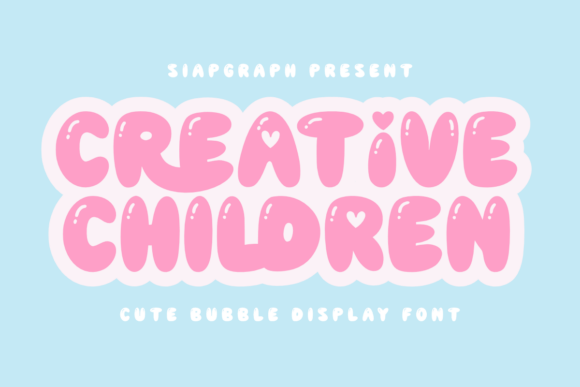
Introducing Creative Children Font: The Ultimate Playful Display Font for Kids
Are you looking for a font that can instantly bring a burst of youthful energy and whimsical charm to your designs? Look no further than Creative Children, an adorable and playful bubble display font that is perfect for creative projects aimed at kids. With its plump, rounded letterforms and delightful heart accents, this font is sure to create a truly endearing and eye-catching presence that will captivate young audiences.
The Perfect Font for Kids’ Designs
Creative Children is specifically designed to infuse a dose of fun and cheerfulness into a wide variety of creative projects for kids. Whether you’re creating vibrant stickers, enchanting planner elements for school, eye-catching t-shirt designs for little ones, sweet product labels for children’s goods, cheerful birthday invitations, personalized tumblers, or a plethora of other engaging crafts, this font is the perfect choice.
Its distinctively friendly and approachable style makes it exceptionally well-suited for products targeting end-users who enjoy crafting with tools like Cricut and for sublimation projects, as well as for creating appealing stickers and planner elements with a truly heartwarming flair.
Unforgettable and Lively Character
Creative Children’s unforgettable and lively character will ensure your creations stand out and bring a big smile to everyone who sees them. This font is perfect for designers, crafters, and DIY enthusiasts who want to create designs that celebrate youthful imagination and bring joy to kids.
With Creative Children, you can add a touch of whimsy and playfulness to your designs, making them perfect for kids’ parties, special occasions, or everyday creative projects. Its unique and charming style will make your designs memorable and engaging, ensuring that they leave a lasting impression on your audience.
Key Features of Creative Children Font
- Playful bubble display font with plump, rounded letterforms
- Delightful heart accents add a touch of whimsy and charm
- Perfect for creative projects aimed at kids, including stickers, planner elements, t-shirt designs, product labels, and more
- Distinctively friendly and approachable style
- Exceptionally well-suited for products targeting end-users who enjoy crafting with tools like Cricut and for sublimation projects
- Unforgettable and lively character that brings a big smile to everyone who sees it
Ideas for Using Creative Children Font
Creative Children is a versatile font that can be used in a wide range of creative projects. Here are some ideas to get you started:
- Vibrant stickers for kids’ parties or special occasions
- Enchanting planner elements for school or home organization
- Eye-catching t-shirt designs for little ones
- Sweet product labels for children’s goods
- Cheerful birthday invitations or party decorations
- Personalized tumblers or water bottles for kids
- Appealing stickers and planner elements for Cricut or sublimation projects
Why Choose Creative Children Font?
There are many fonts available that are suitable for kids’ designs, but Creative Children stands out for its unique and charming style. Here are some reasons why you should choose Creative Children for your next project:
- Unique and playful design that will capture kids’ attention
- Easy to read and understand, even for young children
- Versatile font that can be used in a wide range of creative projects
- Exceptionally well-suited for products targeting end-users who enjoy crafting with tools like Cricut and for sublimation projects
- Unforgettable and lively character that brings a big smile to everyone who sees it
In conclusion, Creative Children is an adorable and playful bubble display font that is perfect for creative projects aimed at kids. With its plump, rounded letterforms and delightful heart accents, this font is sure to create a truly endearing and eye-catching presence that will captivate young audiences.
Whether you’re a designer, crafter, or DIY enthusiast, Creative Children is a versatile font that can be used in a wide range of creative projects, from vibrant stickers and enchanting planner elements to eye-catching t-shirt designs and sweet product labels.